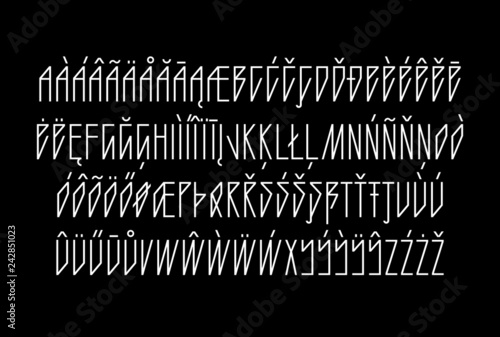
Sharp gothic neon linear tube font, uppercase and lowercase geometric sans serif typography, numerals and symbols, thin and angled minimalistic tattoo letters for neon signs, invitations and art